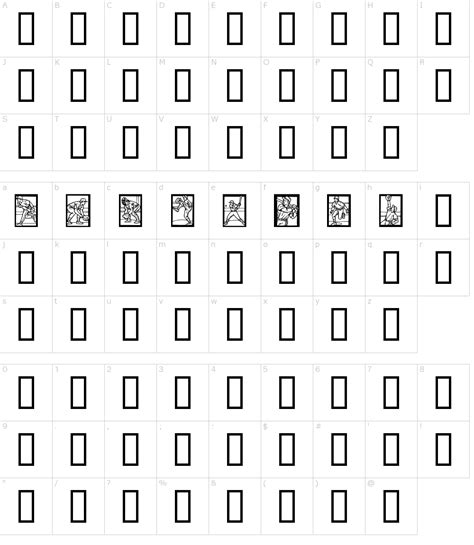
Generate Your Own Iboston Baseball Font
Hey guys, ever looked at those cool Iboston baseball fonts and thought, “Man, I wish I could make something like that”? Well, guess what? You totally can! Today, we’re diving deep into the awesome world of Iboston baseball font generators . We’re gonna break down what they are, why they’re super useful, and how you can get your hands on one to create your own unique team logos, jerseys, or even just for some fun graphic design projects. No need to be a pro designer here; these generators make it accessible for everyone. So, stick around, and let’s get creative!
What Exactly is an Iboston Baseball Font Generator?
Alright, so let’s get down to business. What is an Iboston baseball font generator , really? Think of it like a magical online tool that lets you create custom text that looks like the iconic Iboston baseball font. You know the one – bold, sporty, and instantly recognizable. These generators typically work by giving you a playground to type your own words, choose specific styles, add outlines, shadows, and sometimes even customize colors. It’s basically a digital sandbox for baseball-style lettering. You’re not downloading a font file and fiddling with complicated software; you’re using a web-based application that does all the heavy lifting for you. It’s all about ease of use and getting that professional-looking result without the steep learning curve. These generators are designed to mimic the characteristics of fonts commonly used by professional baseball teams, especially those with a classic, impactful aesthetic like the Boston Red Sox (hence the “Iboston” reference). They often feature strong serifs, a slightly condensed yet powerful stance, and are built to be legible even at a distance, which is crucial for sports branding. The beauty of these tools lies in their simplicity. You type your team name, your player’s number, or any phrase you want, and the generator spits out a stylized version. You can then often download the image – usually as a PNG with a transparent background, making it super easy to drop into other design projects, like t-shirts, banners, or social media graphics. Some generators might offer more advanced options, like tweaking the thickness of the outline, adjusting the shadow’s offset, or even selecting from a palette of sports-themed colors. But the core function is always the same: effortless creation of Iboston-style baseball text . It’s the digital equivalent of having a custom sign painter whip up a killer logo for you, but it happens in seconds and at no cost (usually!). This accessibility is what makes them so popular among fans, amateur sports leagues, and small businesses looking to add a sporty flair to their branding without breaking the bank on custom design work. It’s a fantastic way to personalize anything and everything with that classic American baseball vibe.
Why You Need an Iboston Baseball Font Generator in Your Life
Okay, so why should you even bother with an Iboston baseball font generator ? Guys, the reasons are plentiful! First off, personalization is KING. Whether you’re designing a banner for your local little league team, customizing a gift for a die-hard baseball fan, or even just wanting to create some cool social media posts with a sporty twist, these generators are your secret weapon. They allow you to inject that authentic baseball team spirit into your designs. Think about it: you’ve got your team’s name, maybe a catchy slogan, or even just your favorite player’s number. Typing that into a generator and getting a slick, professional-looking graphic that echoes the legendary Iboston style? That’s instant impact! It saves you a ton of time and money too. Hiring a graphic designer to create custom lettering can get pricey, and learning complex design software like Adobe Illustrator takes ages. These generators cut through all that hassle. You get high-quality, customized text graphics in minutes, often for free. Plus, they’re super versatile. The output from these generators is usually a PNG file with a transparent background. This means you can easily layer it onto photos, websites, t-shirts, mugs, stickers – you name it! Imagine printing custom jerseys for your fantasy baseball league or creating personalized birthday invitations with a baseball theme. The possibilities are practically endless! It democratizes design, making it possible for anyone to create visually appealing content that resonates with a sports-loving audience. It’s not just about mimicking a specific font; it’s about capturing a feeling . That feeling of hometown pride, of competitive spirit, of summer nights and crackling energy at the ballpark. An Iboston-style font generator helps you bottle that feeling and apply it wherever you need it. For small businesses, especially those in or around sports, it’s an incredibly cost-effective way to create professional branding. Think local sports bars, equipment shops, or even coaches offering training sessions. A strong, sporty logo generated quickly can make a huge difference in perceived professionalism and brand identity. And let’s be honest, sometimes you just want something cool and unique to show off your passion for the game. These tools make that super easy and fun. So, if you’re looking to add that special, sporty touch to any project without the usual design headaches, an Iboston baseball font generator is definitely something you should have in your toolkit. It’s all about making your ideas look good and feel authentic to the spirit of the game.
How to Use an Iboston Baseball Font Generator: A Step-by-Step Guide
Alright, let’s get practical, guys! Using an Iboston baseball font generator is ridiculously easy, and I’m gonna walk you through it step-by-step. Seriously, anyone can do this. First things first, you need to find a generator. A quick Google search for “Iboston baseball font generator” or “baseball font creator” should bring up a bunch of options. Look for one that seems user-friendly and has good reviews or examples. Once you’ve landed on a generator website, the fun begins! The most common feature you’ll see is a text input box. This is where you type in whatever you want to transform into that sweet baseball lettering. It could be your team’s name, your last name, a number, or even a funny slogan. Type it in! After you’ve entered your text, you’ll usually see a preview of how it looks. This is where the customization magic happens. Most generators will offer options to change things up. You’ll likely find settings for the main font color, outline color, and maybe even a shadow color and offset. Play around with these! Try different color combinations to match your team’s colors or just whatever looks cool to you. Think about contrast – you want your text to pop! Some advanced generators might even let you adjust the thickness of the outline or the blur of the shadow. Don’t be afraid to experiment. Click buttons, slide bars, see what happens. That’s the beauty of these tools; you can’t really break anything, and you can always reset and start over. Once you’re happy with how your text looks – you’ve got the perfect colors, the right outline, maybe a cool shadow – it’s time to grab your creation. Look for a download button. This is usually pretty clearly labeled, often saying “Download,” “Save,” or “Get Image.” Click it! Most of the time, you’ll get a PNG file. This format is awesome because it supports transparency, meaning the background of your generated text will be see-through. This is super handy for placing your text over photos or other backgrounds without a clunky white box around it. And voilà! You’ve just created your own custom Iboston-style baseball text. You can now use this image anywhere you want – on your website, in a presentation, print it on a t-shirt, use it as a profile picture, whatever your heart desires. It’s that simple. No complicated software, no design degree required. Just your ideas and a cool online tool. So go ahead, give it a try, and unleash your inner designer!
Finding the Best Iboston Baseball Font Generator Online
Finding the perfect Iboston baseball font generator online can feel like searching for a needle in a haystack sometimes, right? But don’t stress, guys! I’ve got some tips to help you snag the best one for your needs. First off, keywords are your best friend . Use search terms like “free baseball font generator,” “custom sports text maker,” “MLB style font generator,” or even “team name text creator.” Mixing and matching these can uncover hidden gems. Don’t just stick to “Iboston” specifically, as not all generators will use that exact term, but they’ll likely mimic the style. Once you start getting results, take a moment to check out the user interface (UI) . Is it clean and intuitive? Can you easily find the text input and customization options? If a site looks cluttered, buggy, or confusing, it’s probably best to move on. You want a tool that makes the process smooth, not frustrating. Look at the customization options . The best generators offer a good range of choices. This includes selecting different colors for the main text, the outline, and the shadow. Some might even let you control the thickness of the outline, the spread of the shadow, or offer gradient effects. The more control you have, the more unique your creation will be. Also, consider the quality of the output . Does the preview look crisp and professional? When you download the image, is it high-resolution? A blurry or pixelated result isn’t going to cut it for most projects. Look for generators that offer PNG downloads with transparent backgrounds – this is a huge plus for versatility. Read reviews or check examples if the site provides them. Seeing what others have created using the tool can give you a good sense of its capabilities and limitations. If you can find independent reviews online, even better! Finally, consider if it’s free or paid . Many excellent generators are completely free to use, which is fantastic. Some might offer premium features for a fee, but honestly, the free versions are often more than sufficient for most casual users and even many small projects. Don’t pay if you don’t have to! Keep an eye out for sites that might be overloaded with intrusive ads or pop-ups, as this can be a major annoyance and sometimes a security risk. Prioritize generators that are straightforward, offer robust customization, and deliver high-quality results. With a little digging, you’ll find a tool that helps you create awesome, Iboston-inspired text graphics in no time.
Creative Ways to Use Your Iboston Baseball Font Creations
So you’ve used a generator, downloaded your awesome Iboston baseball font text, and now you’re wondering, “What next?” Guys, the possibilities are practically endless! Let’s brainstorm some super creative ways you can put your custom creations to work. First up, personalize sports gear . This is the most obvious, right? Get custom t-shirts, hats, or hoodies made for your local team, your fantasy league, or even just for a fun family reunion. Imagine everyone rocking a shirt with the team name in that killer Iboston style! You can also get it printed on banners for game day, car decals, or even custom water bottles to keep everyone hydrated in style. Next, think about event invitations and decorations . Planning a birthday party with a baseball theme? Use your generated text for the invites! You can also print it out and use it as part of the party decorations – think custom signs, table centerpieces, or even cake toppers. It adds a really professional and thematic touch that guests will love. Social media and online branding is another huge area. Use your custom text as a profile picture, a cover photo for your Facebook page, or as a watermark on your photos. If you have a website or blog about baseball, this kind of personalized graphic can really make it stand out and give it a unique identity. For small businesses, especially those related to sports – think a local sports memorabilia shop, a coaching service, or even a sports-themed cafe – this is a fantastic way to create a logo or branding element without the high cost of professional design. A strong, sporty logo can instantly communicate what you’re about. Gifts for the ultimate fan ! Need a unique gift for a baseball fanatic? Print your custom text onto a mug, a mousepad, a framed print, or even a custom piece of memorabilia. It’s a thoughtful and personalized way to show you know their passion. Think about creating a “hall of fame” style graphic with their favorite player’s name or number. And don’t forget about digital scrapbooking or fan art . If you’re into creating digital art or scrapbook pages celebrating your favorite team or player, these custom text graphics are perfect for adding that authentic, sporty flair. You can layer them over photos of game day or create stylized graphics of team slogans. The transparent PNG format is your best friend here, allowing you to seamlessly integrate your text into any design. Basically, if you can imagine it, you can probably add your custom Iboston-style text to it. It’s all about taking that iconic baseball look and making it your own, adding a personal touch that elevates any project from ordinary to extraordinary. So go wild, get creative, and make some noise with your awesome custom text!
Tips for Making Your Iboston Baseball Font Look Amazing
Alright, you’ve got your Iboston baseball font generator fired up and you’re ready to create. But how do you make sure your text doesn’t just look okay , but looks amazing ? Here are some pro tips, guys, to really make your creations pop! First off, master the color palette . While generators often let you pick any colors, stick to a cohesive scheme. If you’re representing a team, use their official colors. If it’s for a personal project, choose colors that work well together and convey the right mood – think bold and energetic for a team, maybe slightly more muted for a vintage feel. Always ensure good contrast between the text color and the outline color, and between the outline and the background (if you’re not using transparency). A common mistake is making the outline too similar in shade to the main text, which makes it hard to read. Embrace the outline and shadow, but don’t overdo it . Outlines are crucial for that classic baseball look, adding definition and impact. Shadows can add depth and make your text feel more three-dimensional. However, too thick an outline or a shadow that’s too large and offset can look messy. Experiment with different thicknesses and offsets to find what looks clean and professional. Sometimes, a subtle shadow is more effective than a huge, distracting one. Consider the context . Where will you be using this text? If it’s for a jersey that will be seen from afar, boldness and clarity are key. If it’s for a website banner, you might have more flexibility for finer details. Think about legibility above all else. A super stylized font is cool, but if people can’t read it, it defeats the purpose. Keep it relevant . If you’re naming a team, use strong, evocative words. If you’re creating a slogan, make it punchy and memorable. The text itself matters, not just the styling. Experiment with different generators . Not all generators are created equal. Some might have slightly different algorithms or font bases, leading to subtle variations in the final output. Trying a few different ones might give you the exact look you’re after. Check the resolution . When you download your image, make sure it’s at a high enough resolution for your intended use. If you plan to print it on a large banner, a low-res download will look terrible. Most generators offer a decent default resolution, but be mindful of this, especially if you’re resizing the image later. Less can be more . Sometimes, the simplest designs are the most effective. Don’t feel pressured to cram in every single effect the generator offers. A clean, well-executed design with a strong color scheme and balanced outlines often looks far more professional than something that’s overloaded with effects. By paying attention to these details, you can elevate your generated text from basic to brilliant, ensuring your Iboston-style creations make a powerful statement.
The Future of Font Generation and Iboston Style
Looking ahead, the landscape of font generation , especially for specific styles like the Iboston baseball font , is constantly evolving, guys. We’re already seeing AI and machine learning making inroads into graphic design, and font creation is no exception. Imagine AI tools that can analyze existing successful baseball fonts, understand their core characteristics – the weight, the spacing, the specific curves and angles – and then generate entirely new, unique variations based on those parameters. This could lead to an explosion of highly customized and specialized fonts that are even more tailored to specific aesthetic needs. For the “Iboston style” in particular, future generators might become incredibly sophisticated. They could offer not just basic color and shadow options, but perhaps dynamic effects, like a subtle “stitching” texture overlay, or the ability to generate text that looks like it’s been painted directly onto a textured surface, like canvas or aged wood. We might see generators that allow for intricate layering of multiple outlines and effects, giving users unparalleled control over the final look. Augmented reality (AR) could also play a role. Imagine using your phone to “place” your custom-designed baseball text onto a real-world object – like pointing your camera at a blank t-shirt and seeing your generated logo appear on it in real-time before you even print it. This would revolutionize how we visualize and create custom merchandise. Furthermore, the accessibility of these tools will likely increase. Instead of just web-based generators, we might see more integration into existing design software or even standalone mobile apps that are incredibly user-friendly. The goal will always be to lower the barrier to entry, allowing anyone with an idea to create professional-looking graphics. The “Iboston” aesthetic, with its blend of tradition and boldness, is timeless in the sports world. As technology advances, the tools to create it will become more powerful, intuitive, and versatile. This means we’ll likely see even more creative and personalized uses of this iconic style, pushing the boundaries of what’s possible with simple text generation. The future is bright, and it’s looking very sporty! The key takeaway is that while the technology will get more advanced, the core appeal of these generators – making unique, impactful text easily accessible – will remain the driving force. Whether it’s for a professional sports team’s branding or a fan’s personal project, the ability to capture that classic baseball vibe will only get easier and more creative.